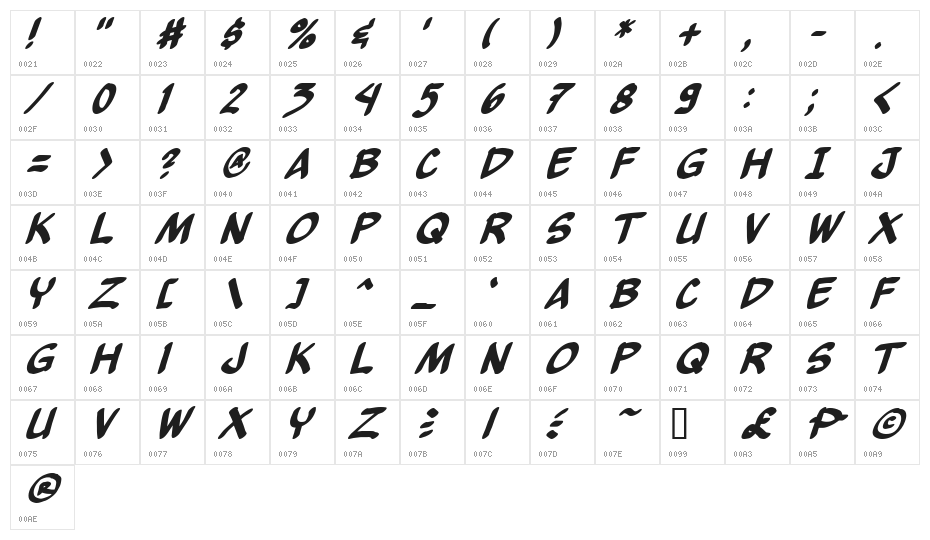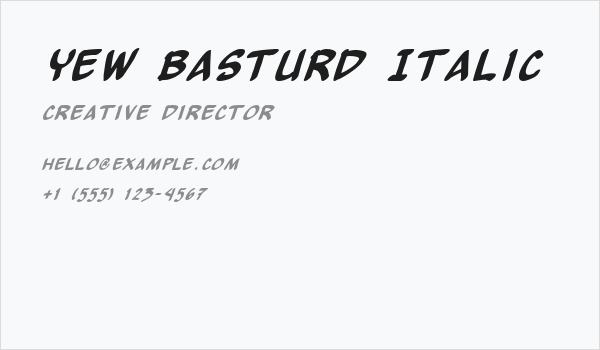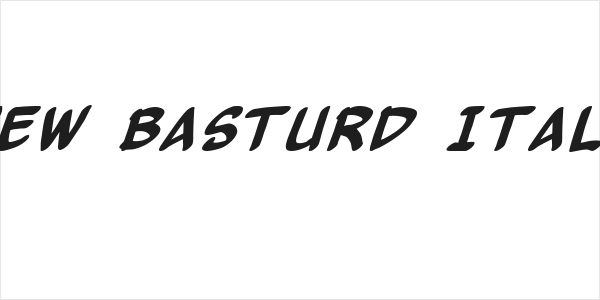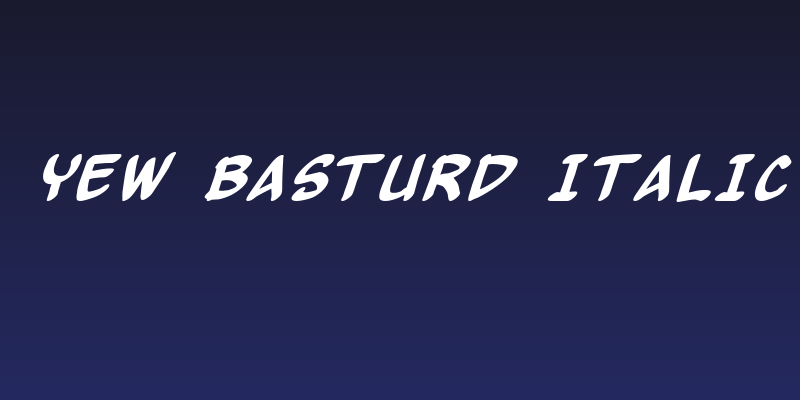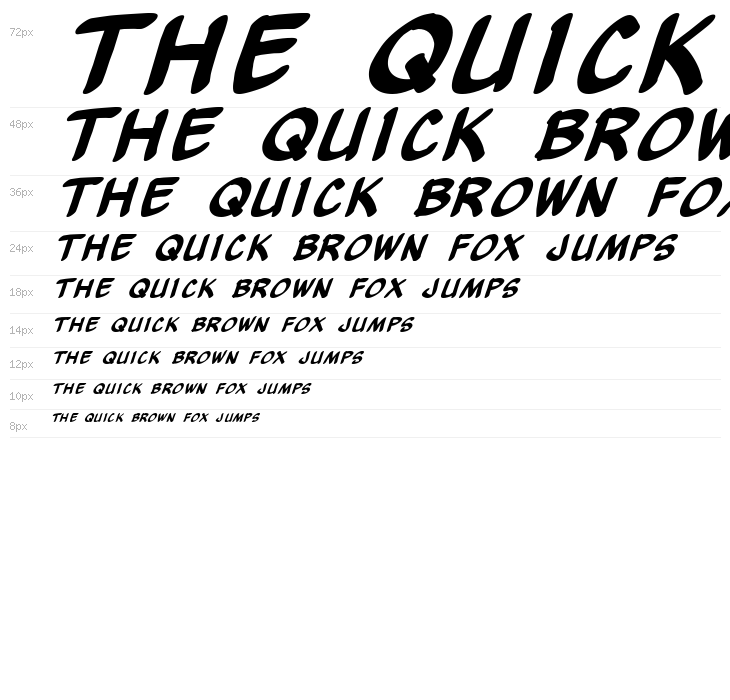
Yew Basturd Italic Font
Yew Basturd Italic Description
This font features a bold, italic style with a dynamic and energetic appearance. The characters are slightly slanted, giving a sense of motion and fluidity. The strokes are thick and consistent, providing a strong visual impact. The uppercase and lowercase letters maintain a cohesive style, with rounded edges and smooth curves. Numbers and special characters are designed to match the overall aesthetic, ensuring uniformity across all glyphs. This font is suitable for projects that require a bold and expressive typeface.
Proposed ProjectsIdeal for branding, posters, and headlines that need a strong, expressive typeface.